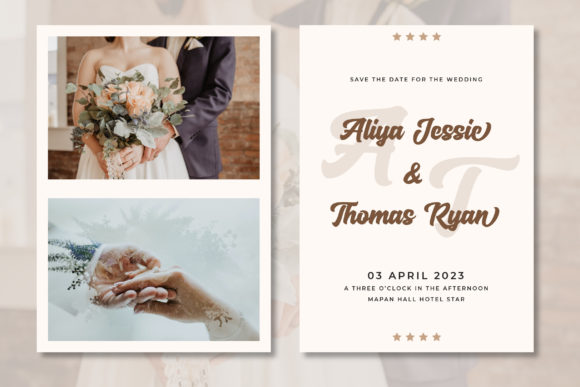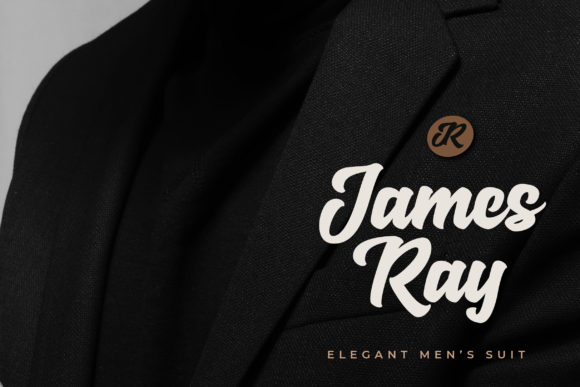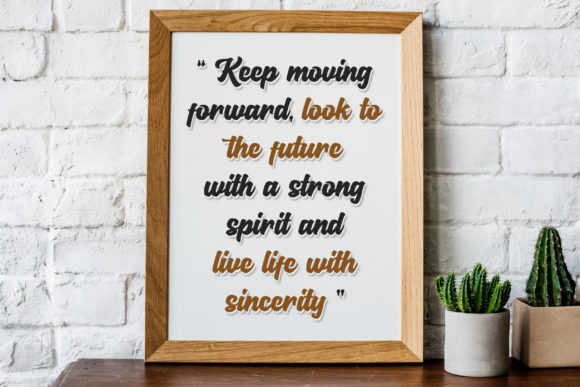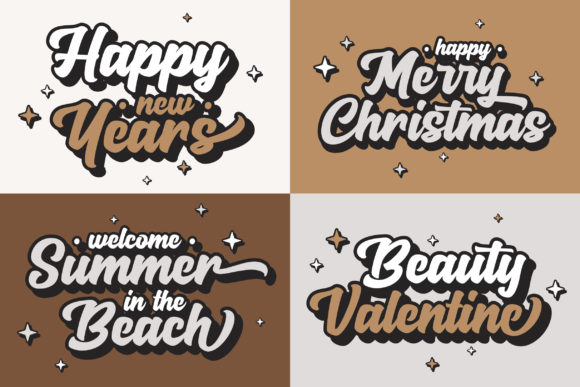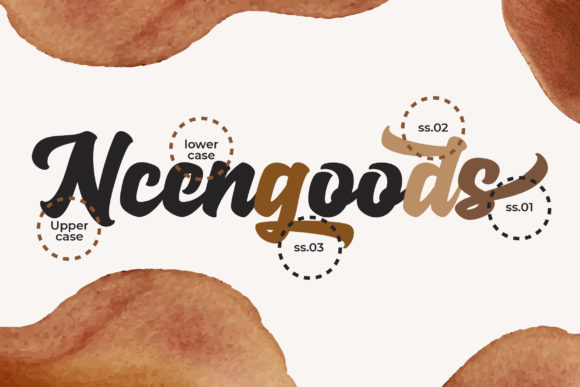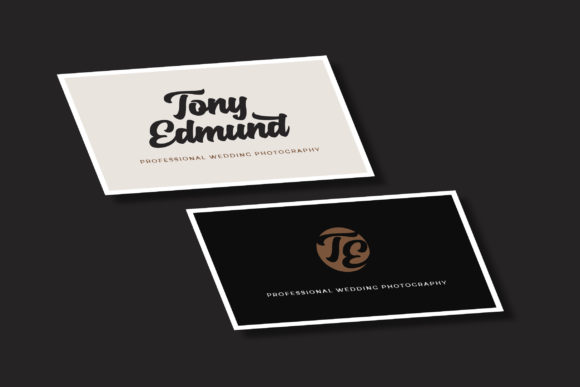
Adding a Touch of Retro Chic to Your Designs
Have you ever been scrolling through a vintage magazine or an old photograph and suddenly been struck by the charm of a particular font? The curves, the flourishes, the imperfections – it’s a design element that can instantly transport you to a bygone era. For designers, capturing that essence in modern projects can be a challenge, but with the right tools, the possibilities are endless.
| 👤 Author | letter battoyart |
Enter the Blondette Font, a gorgeous and bold handwritten font designed to add a retro touch to your headlines and logotype projects. With its PUA encoding, accessing the amazing glyphs and ligatures is a breeze, allowing you to unleash your creativity and give your designs a unique personality.
The Blondette Font is a valuable asset for designers looking to add a touch of nostalgia to their work, and with its versatility, it’s sure to become a go-to choice for any project that needs a dash of retro chic.
Key Features of Blondette Font
- Unique Characteristics: This font features a unique blend of elegance and playfulness, making it perfect for creative projects and designs.
Blondette Font Review
Blondette Font is a delicate, handwritten font that exudes a sense of elegance and sophistication. Here are some of its standout features:
- ✨ Unique character connections: The font’s handwritten style creates a sense of movement and fluidity, making it perfect for invitations, wedding stationery, or any other project where you want to convey a sense of whimsy and romance.
- ✨ Versatility: Blondette Font comes in multiple weights and styles, making it easy to customize to fit your project’s needs.
- ⚠️ Limited legibility: The font’s cursive style can make it difficult to read, especially at small font sizes.
- ⚠️ Limited compatibility: Blondette Font may not be compatible with all devices or operating systems, which could lead to formatting issues.
Overall, Blondette Font is a beautiful and unique font that’s perfect for projects where you want to add a touch of whimsy and romance. While it may have some limitations, its versatility and unique character connections make it a great choice for designers who want to add some personality to their work.
Getting the Most Out of Blondette Font
Blondette Font is perfect for creating elegant and sophisticated designs. To get the most out of it, try the following:
- Pair Blondette Font with a clean and minimalist background to create a striking contrast.
- Use Blondette Font for headings and titles to create a clear hierarchy of information.
- Experiment with different font sizes and colors to add depth and interest to your design.
Blondette Font is suitable for a wide range of designs, including:
- Wed